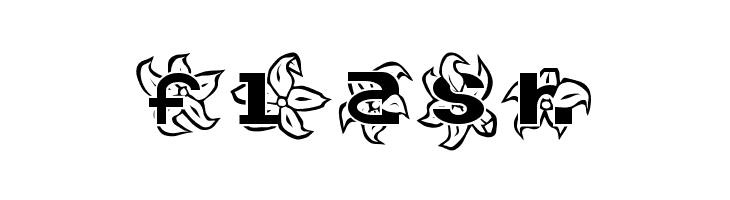
TIRITONA REGULAR Font
( Fonts by Caffeen Fonts - www.swank.ca/caffeen/fonts/ )
A bold, decorative font with integrated floral motifs, perfect for tropical-themed designs.